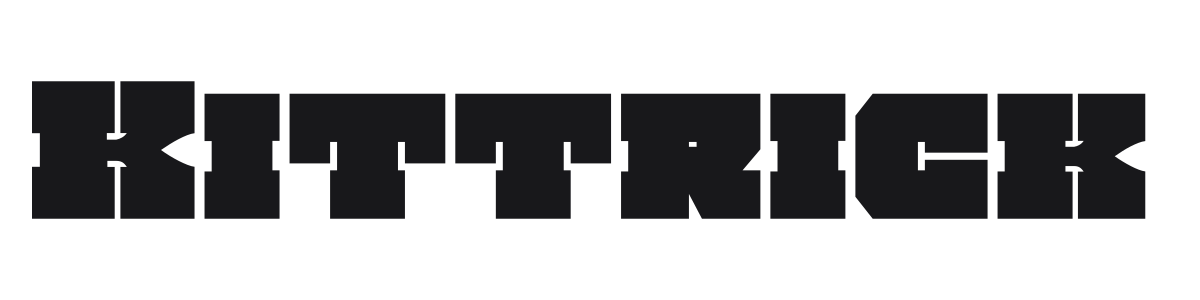
Kittrick
Kittrick is a heavy slab-serif display face from Iconian Fonts with thick rectangular serifs and bold squared proportions. Subtle notched details at stroke junctions give it a military or collegiate edge that sits comfortably between old Western woodtype and modern sports branding. It commands attention at large sizes and comes in an unusually broad family of 17 variants.